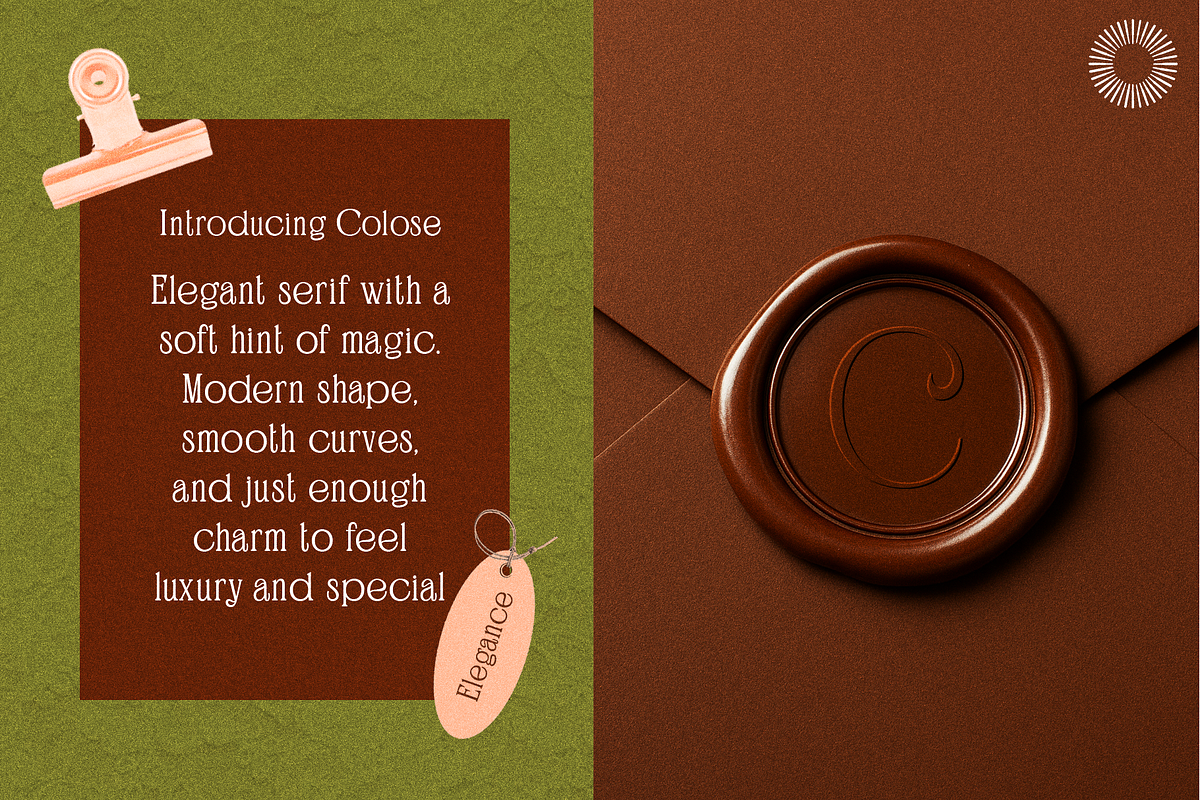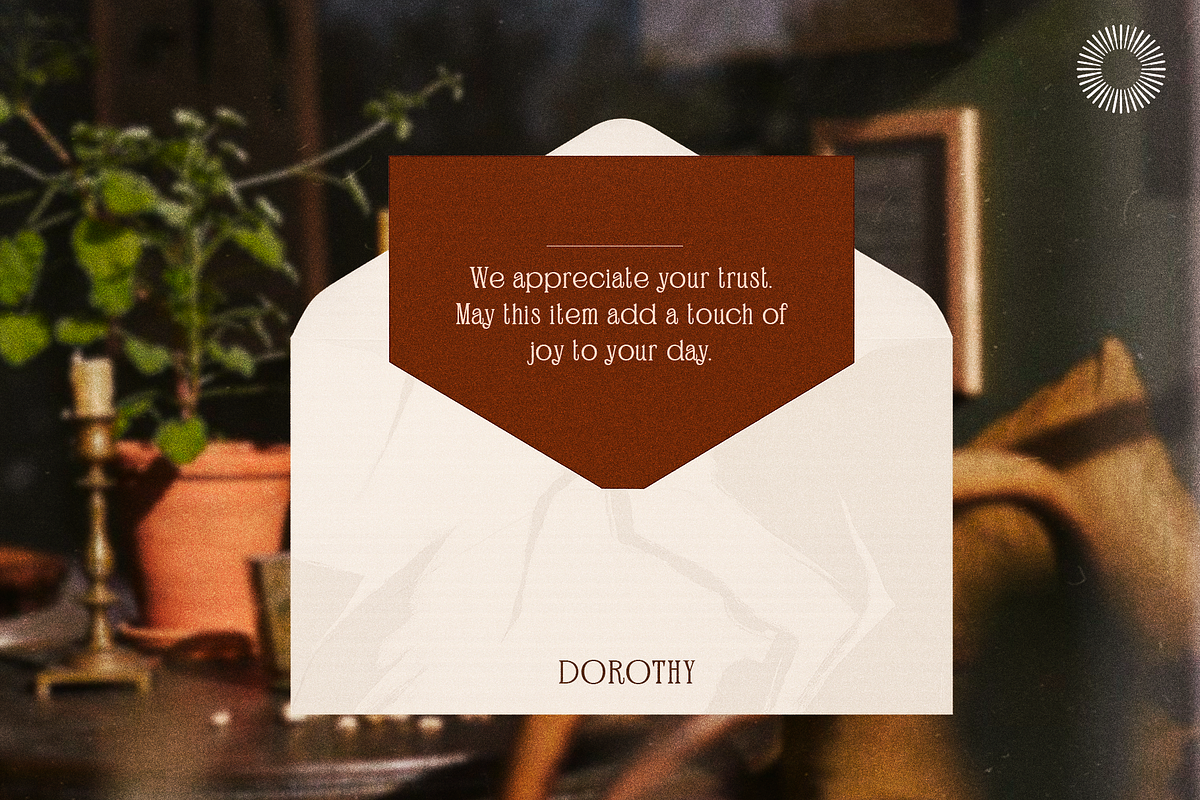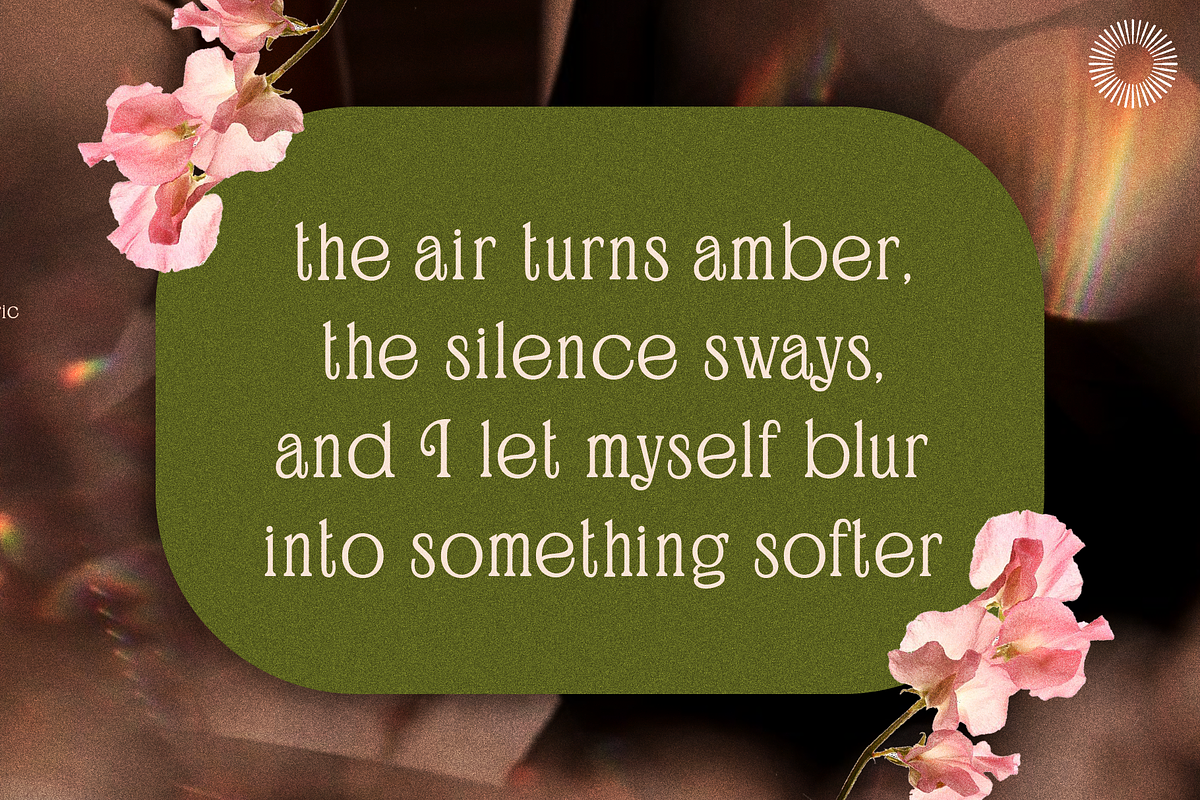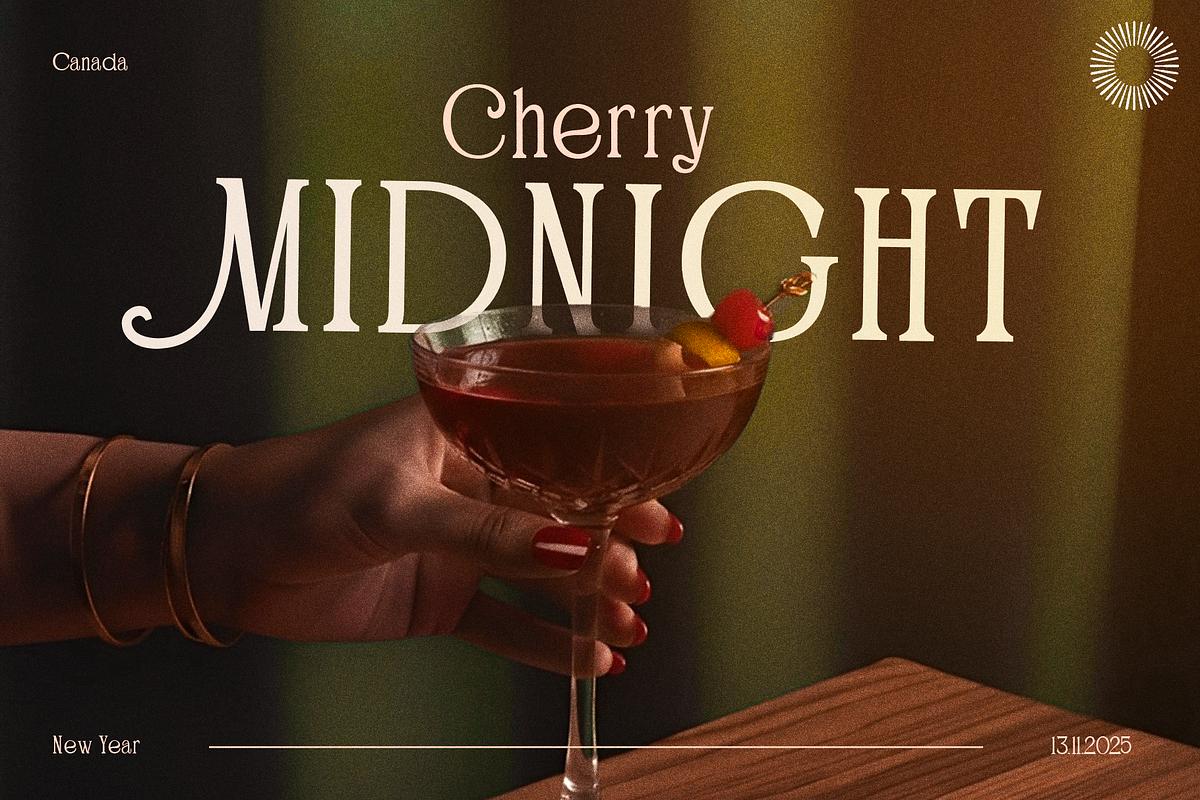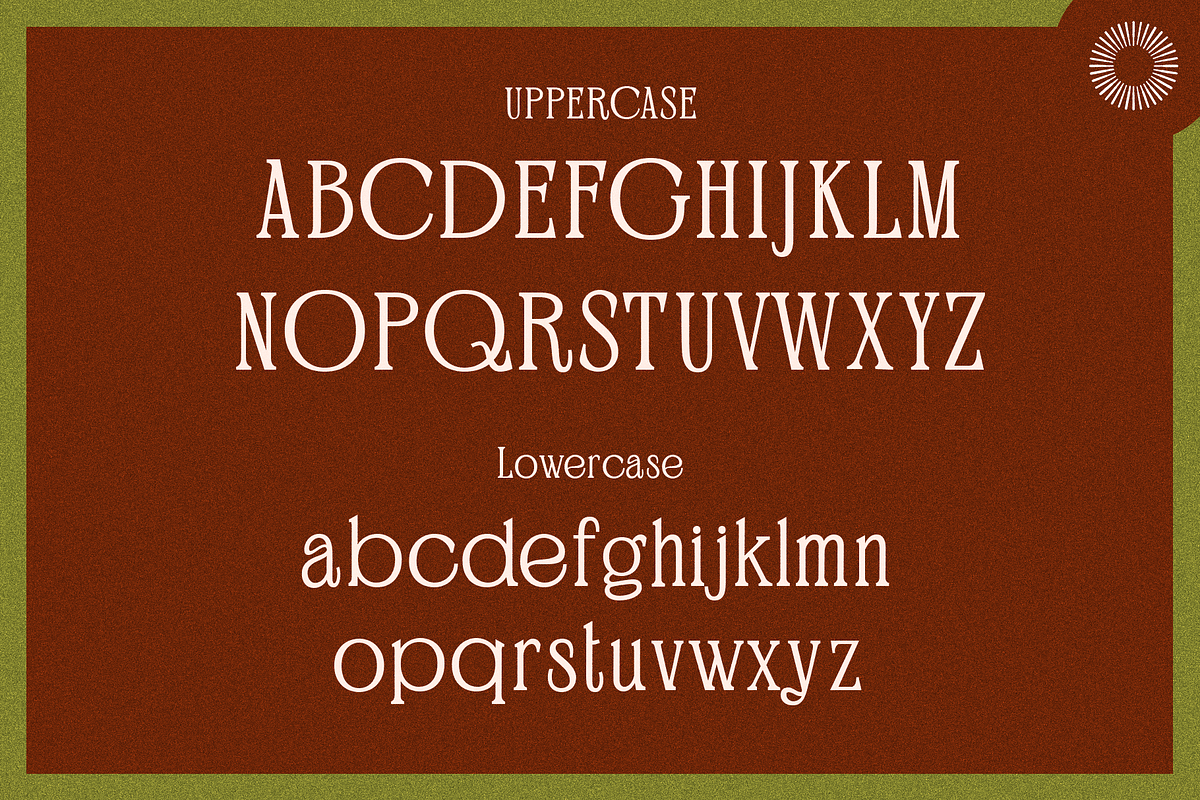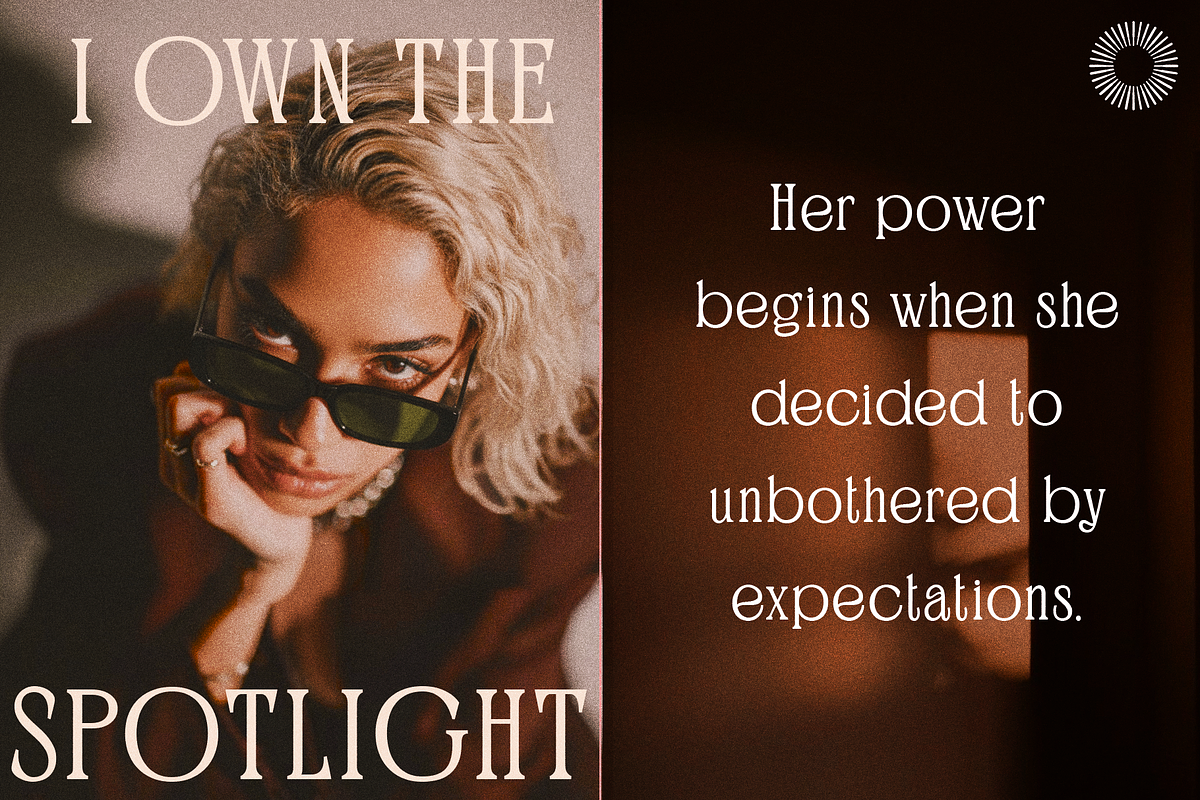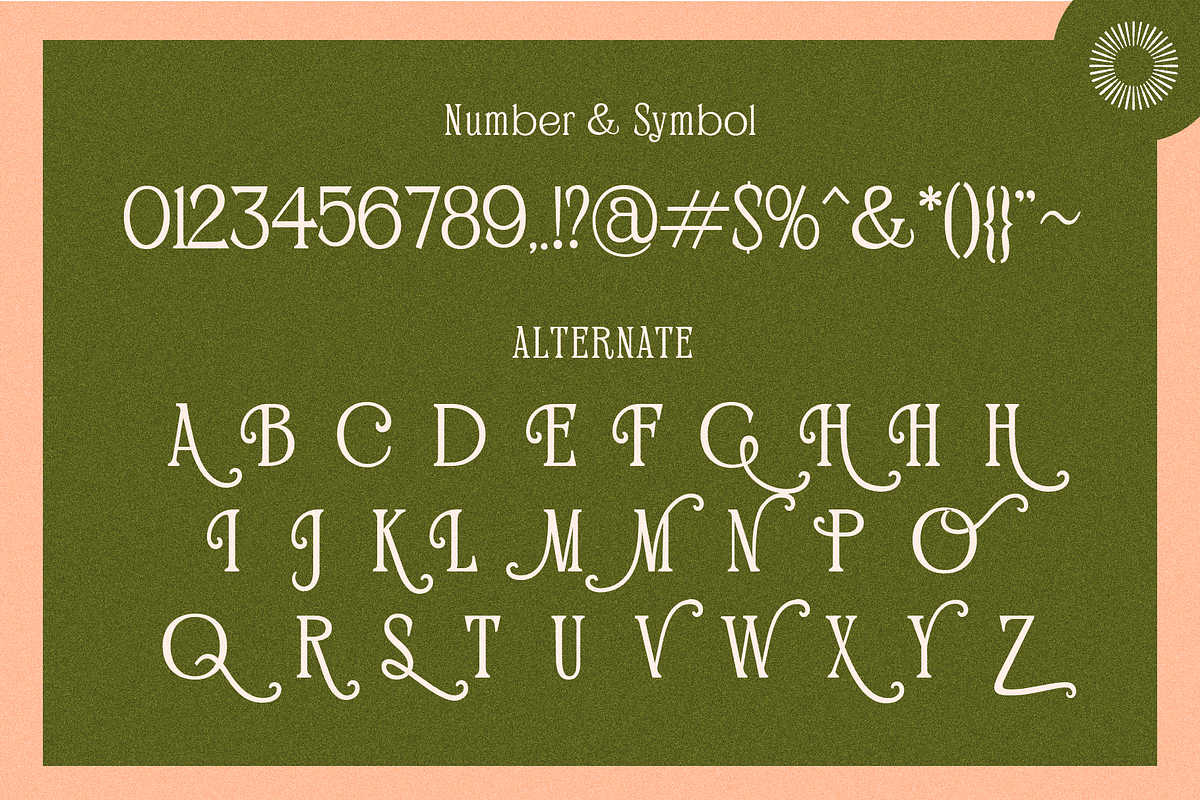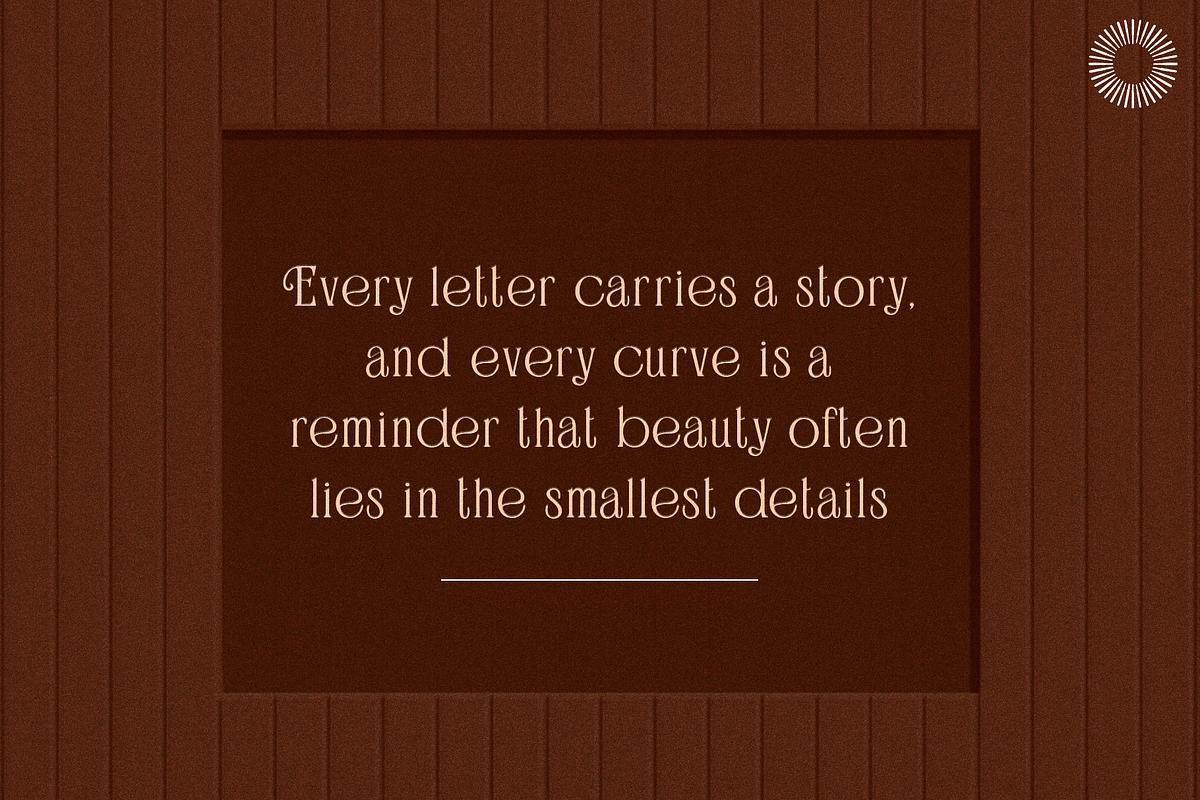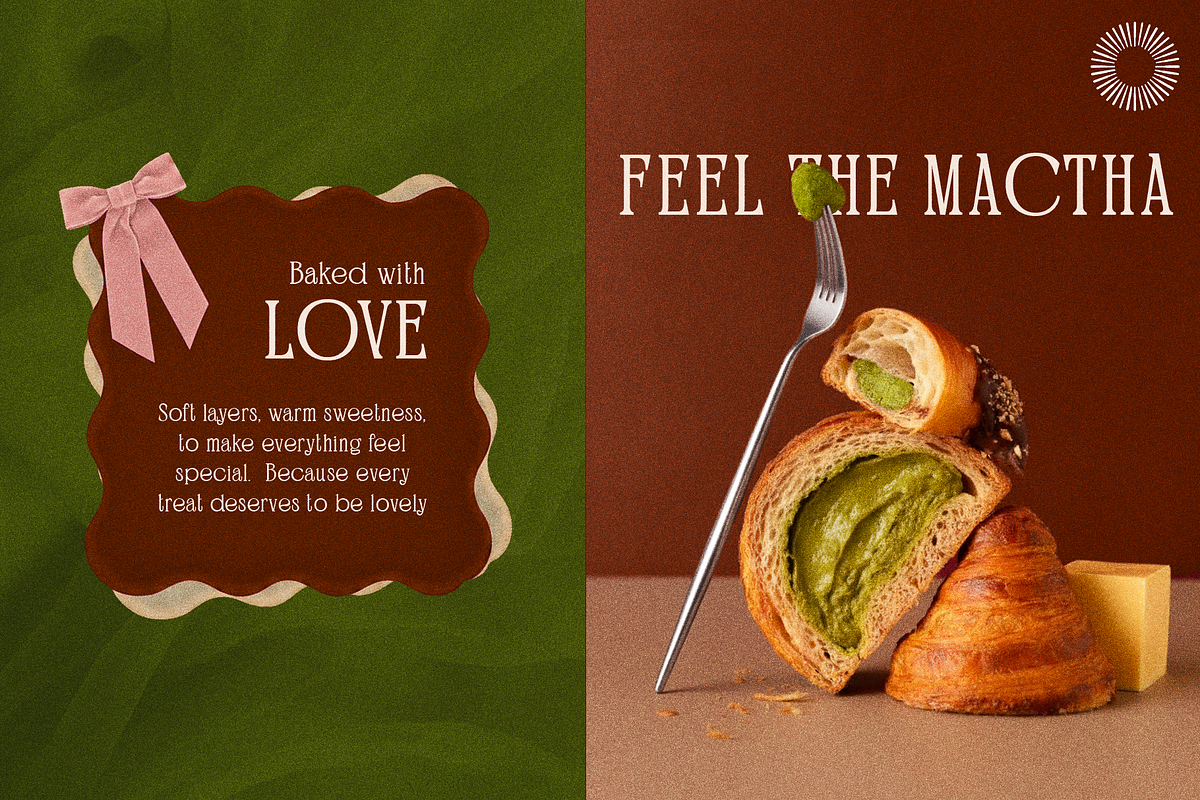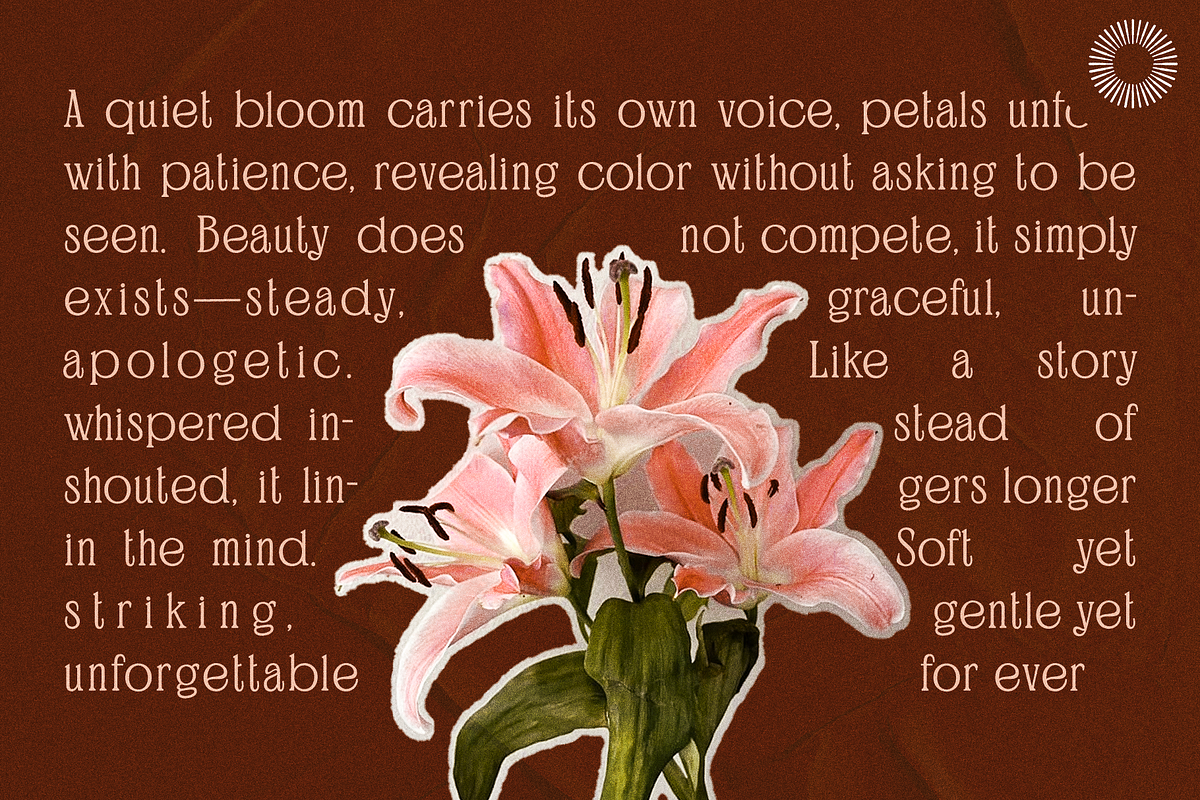
Qolose - Fairytale Serif
Qolose – A Fairytale-Inspired Elegance Serif Qolose is a serif typeface crafted for creators who want their work to feel soft, whimsical, and thoughtfully detailed. It doesn’t rely on loud ornamentation. its charm comes from subtle curves, gentle flourishes, and letterforms that echo the warmth of vintage storybook typography without feeling outdated. The result is a serif that feels dreamy yet readable, decorative yet balanced. Every curve in Qolose was drawn to give your layout a sense of magic: the looping terminals, the slightly extended proportions, and the graceful rhythm between thick and thin strokes all work together to create a refined but romantic personality. It’s the kind of serif that naturally draws the eye, especially in titles, packaging, and branding that needs a soft luxury touch. Even though Qolose looks delicate at first glance, it’s versatile. It works for editorial layouts, beauty branding, perfume packaging, boutique logos, poetry covers, wedding designs, and any project that needs elegance without looking generic. The fairytale influence is present, but not overbearing—there’s enough structure and modern clarity to keep your designs feeling current.